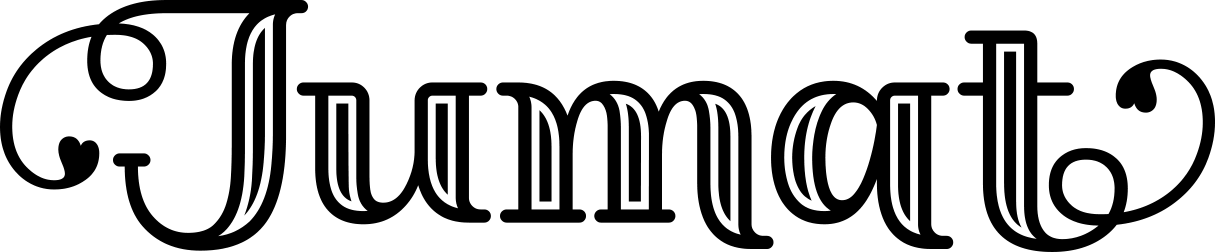
Jumat Font
To make a stunning outcome, one of the most important things is choosing the proper font. That’s why you should take a look at this retro font right now. In Jumat, the letters are decorated and work perfectly for Valenti…
To make a stunning outcome, one of the most important things is choosing the proper font. That’s why you should take a look at this retro font right now. In Jumat, the letters are decorated and work perfectly for Valentine’s Day cards, flyers, books, etc. Give it a shot to see how amazing it appears.